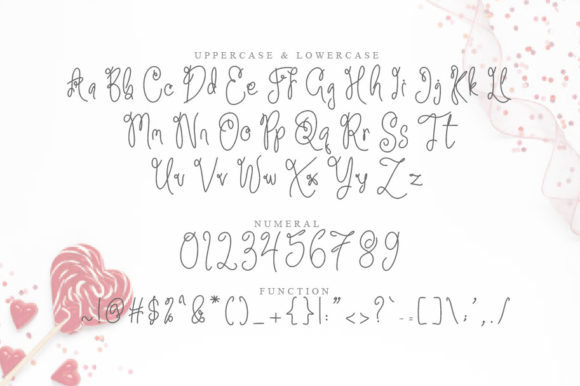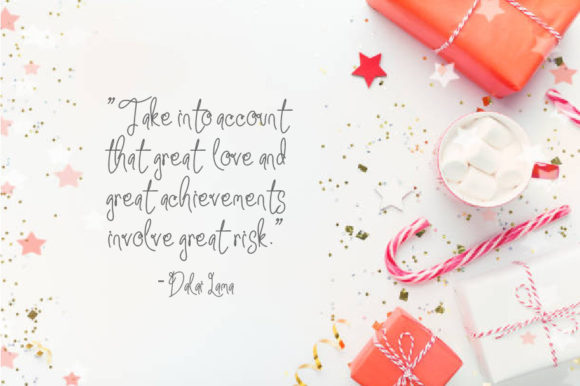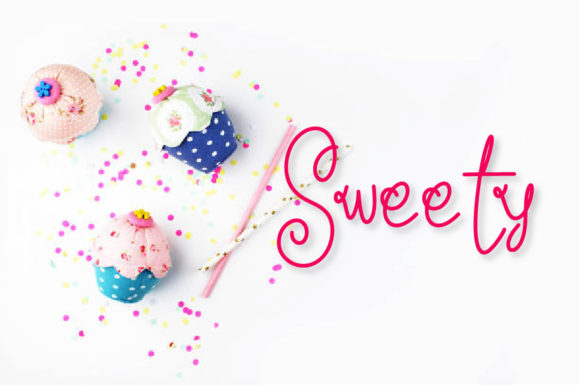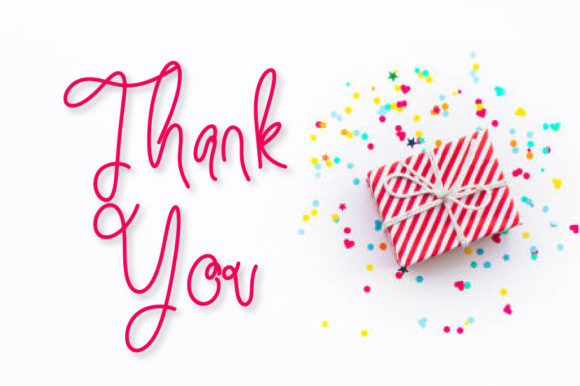
Xaybiln Font
About Xaybiln Font
Xaybiln is a simple and neat lettered handwritten font. Its natural and unique style makes it incredibly fitting to a large pool of designs. The only limit is your imagination!